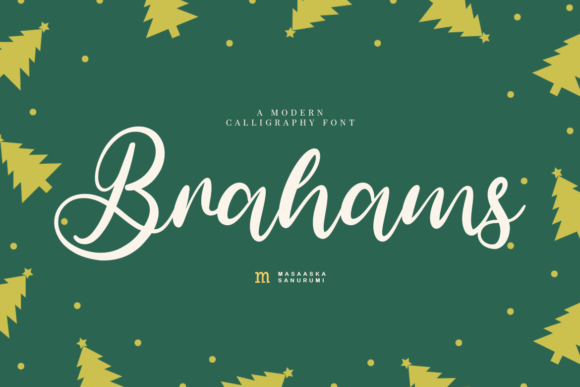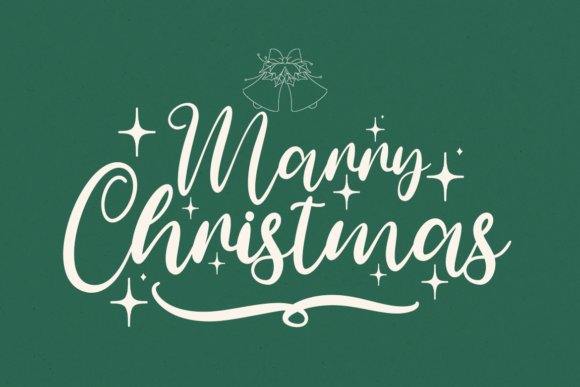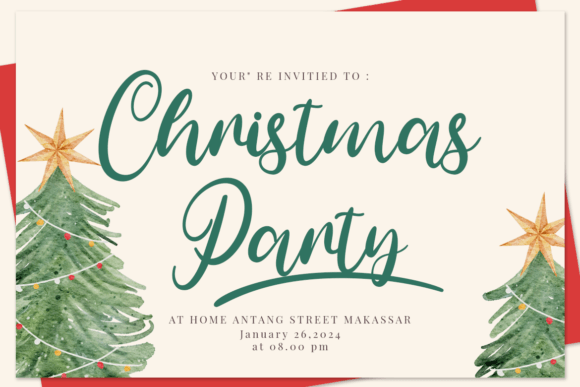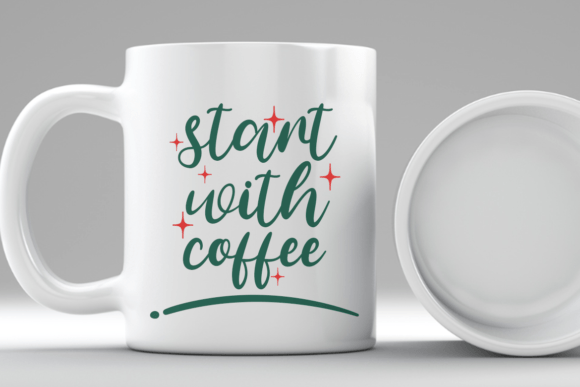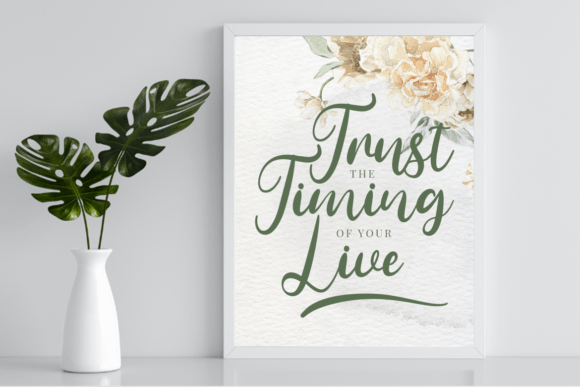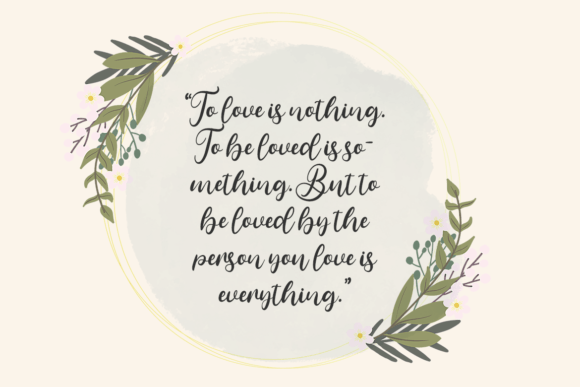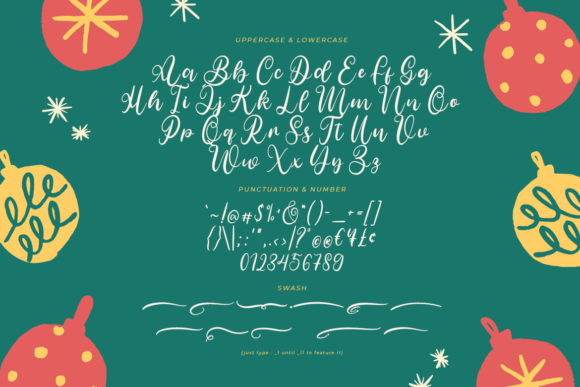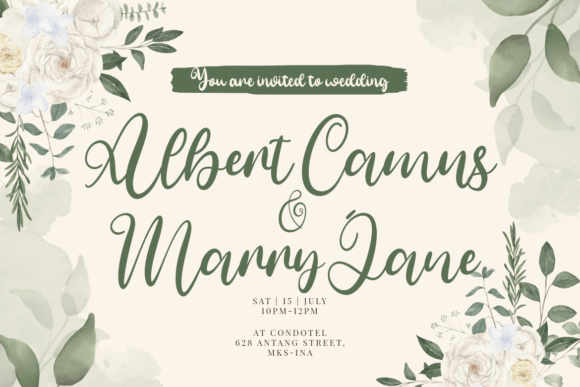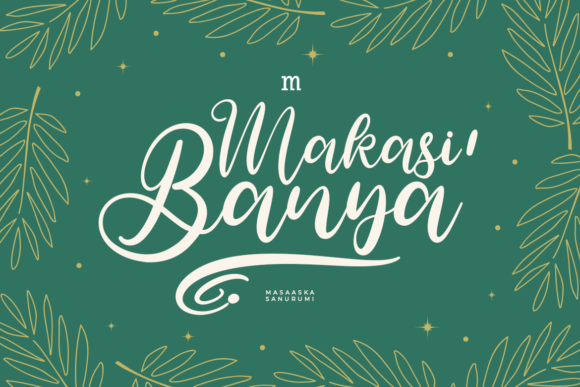
Brahams Font
Add Modern Elegance with Brahams Font
Brahams Font is a beautiful and modern script typeface defined by its simplicity and stylish design. This font adds a clean and elegant touch to your creative projects. Whether you need fonts for Instagram posts, calligraphy-inspired DIY projects, or sophisticated branding materials, BrahamsFont helps you transform your ideas into true works of art.
Its smooth, flowing letterforms create a refined and graceful look, enhancing the beauty of any design.
Versatile Uses for Brahams Font
Brahams Font suits a wide range of creative projects, including:
• Instagram graphics and social media posts
• Calligraphy and handwritten DIY projects
• Wedding invitations and event stationery
• Branding and logo designs
• Posters, flyers, and promotional materials
Thanks to its beautiful and modern script style, BrahamsFont adds elegance and sophistication to all your creative ideas.
It features optimized kerning and clear spacing to ensure your text remains readable and visually appealing across different sizes and platforms.
Why Designers Choose Brahams Font
Designers and creatives appreciate BrahamsFont for its blend of modern style and timeless elegance. It adds a personal and professional flair that elevates any project. Whether you are a professional or a hobbyist, Brahams Font helps you create beautiful and memorable typography with ease.
Use BrahamsFont to bring modern elegance and artistic style to your next creative design.